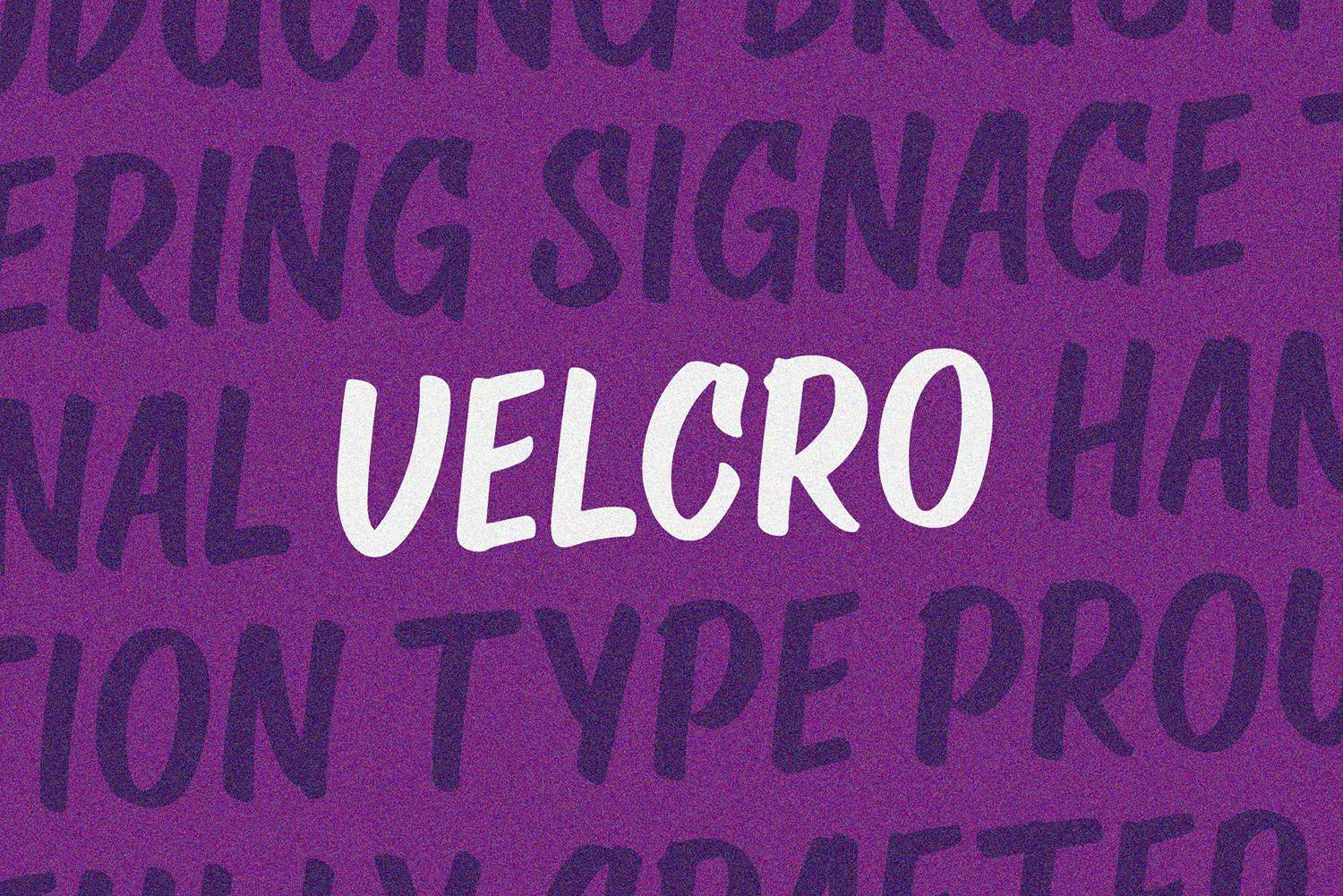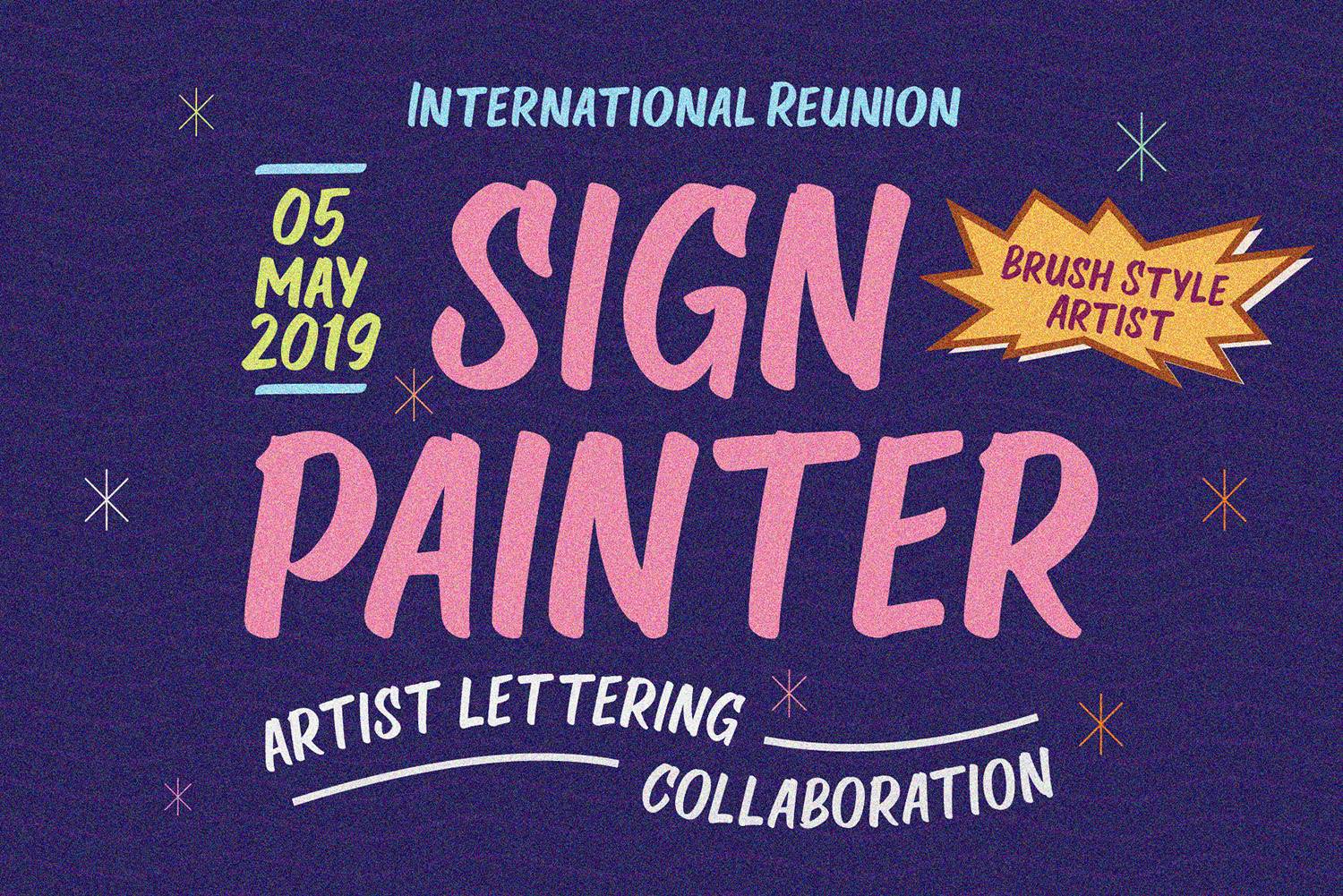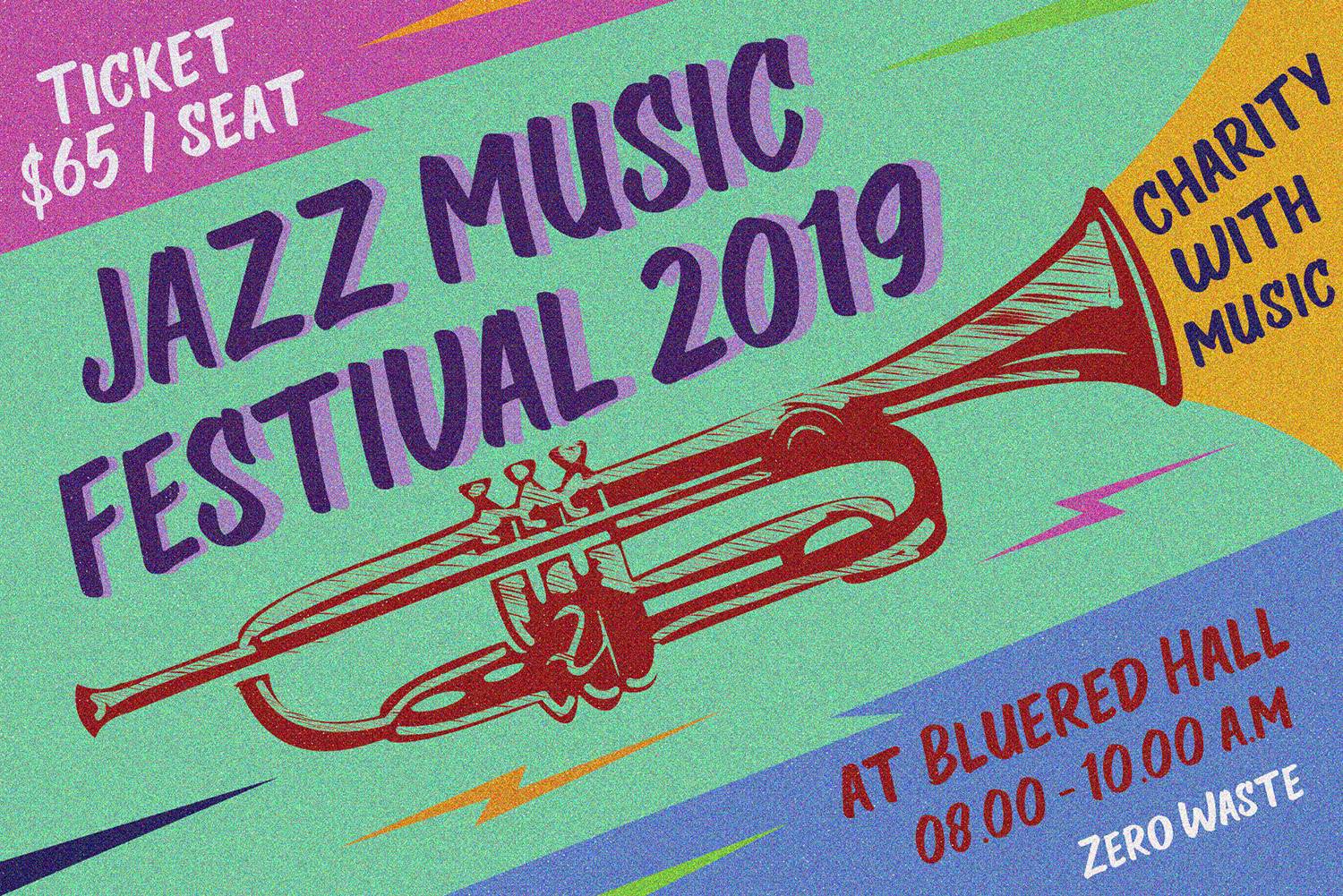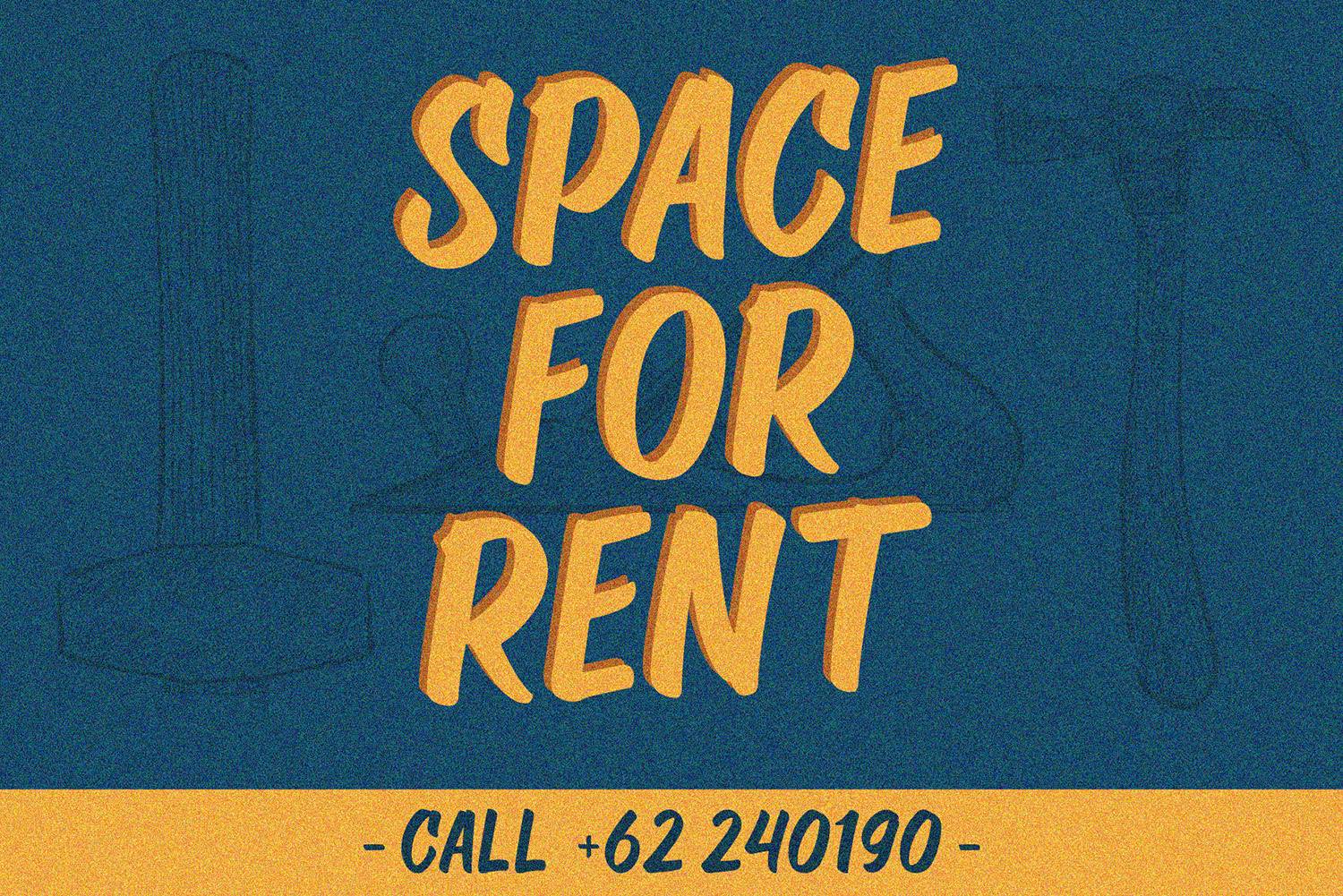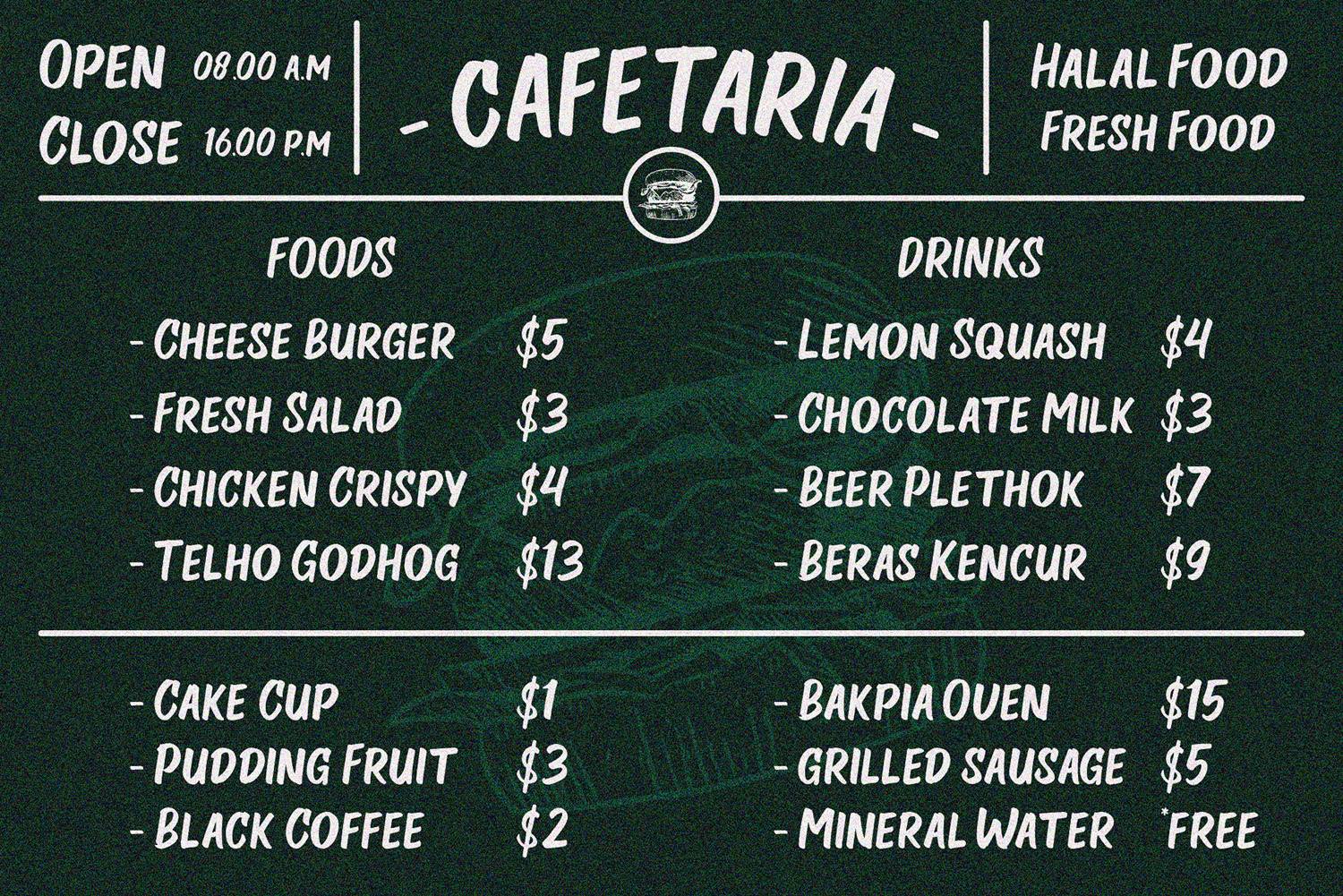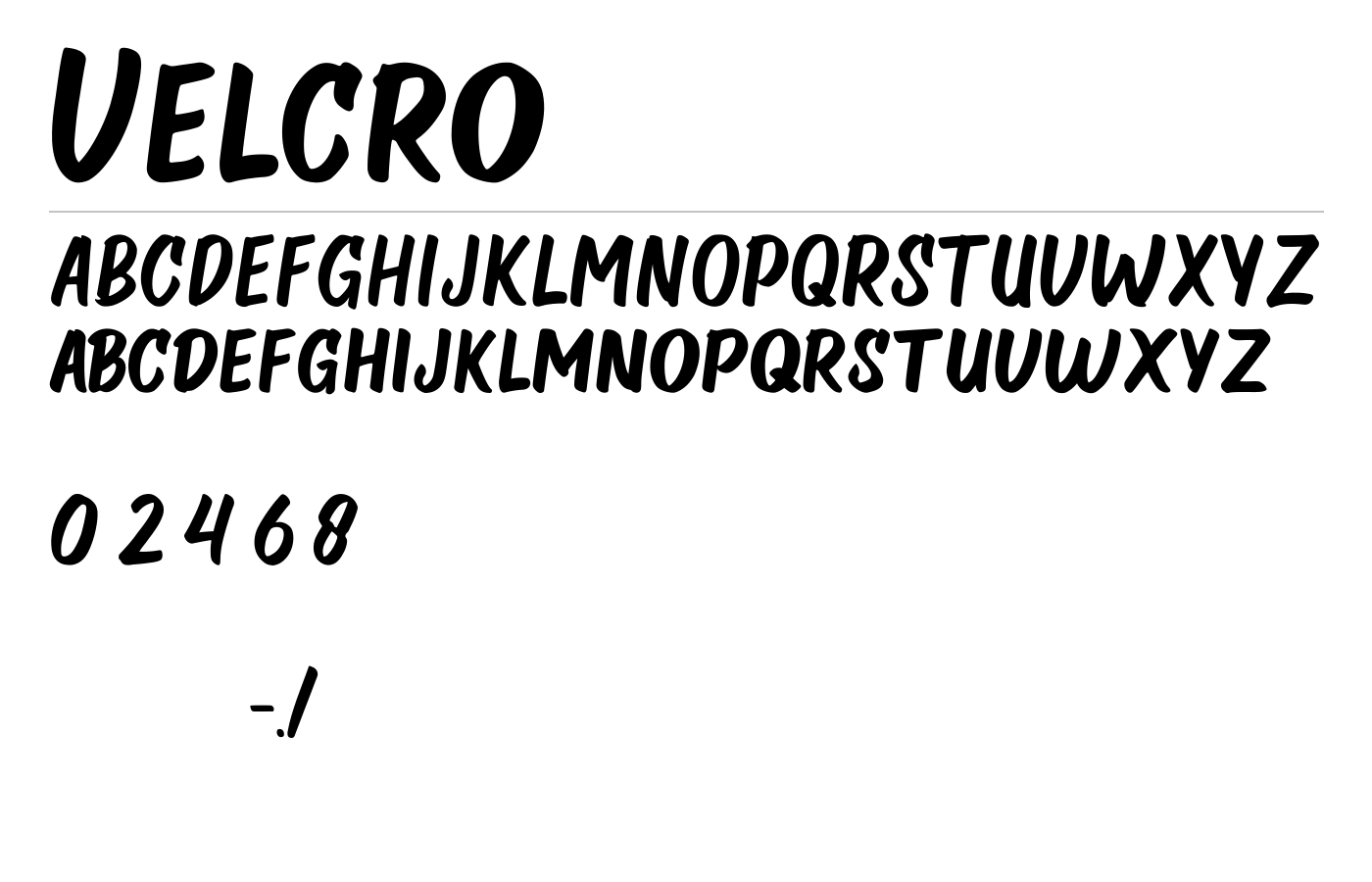
Velcro Font is a bold, playful sans serif typeface with a slightly condensed width and lively, hand-drawn brush stroke style. Its thick, rounded letterforms and irregular shapes give it a casual, friendly personality ideal for fun, informal branding, posters, and creative projects seeking an energetic, approachable vibe. This font works best in headlines or display settings where its dynamic, hand-crafted feel can grab attention and convey warmth.
Velcro Font
About Velcro Font
| Font family | Velcro Font |
| Release date | 2019-06-17 |
| Designer | Lukman Hidayat |